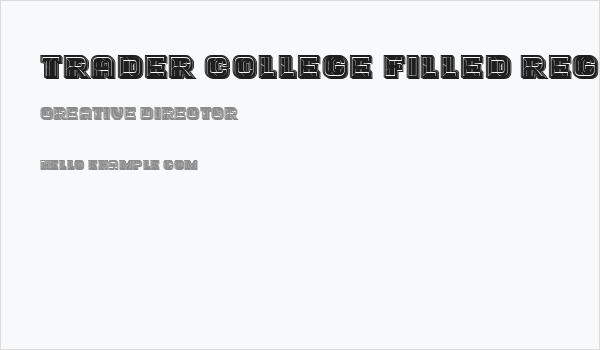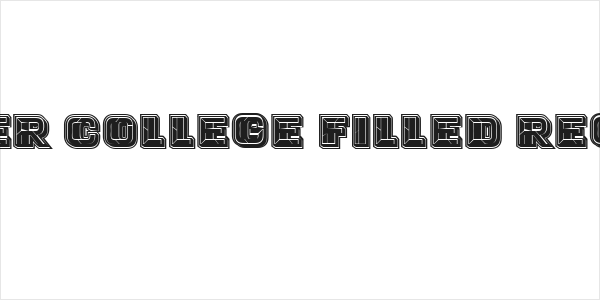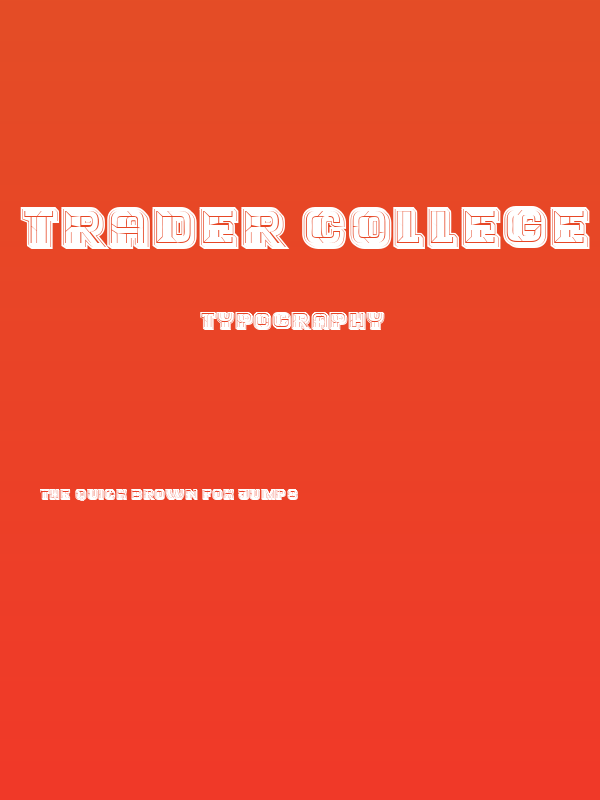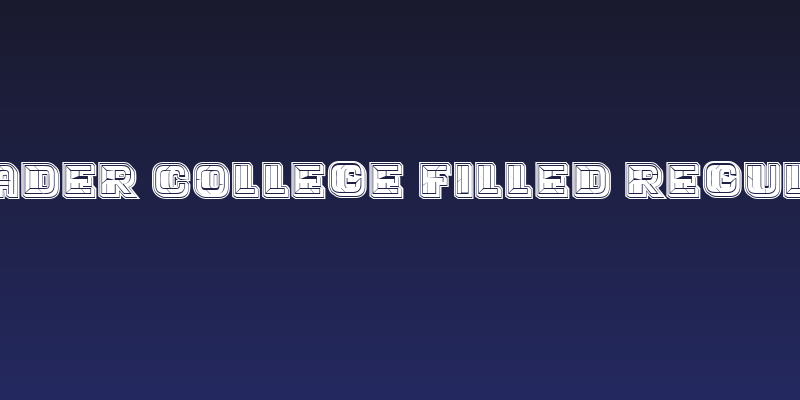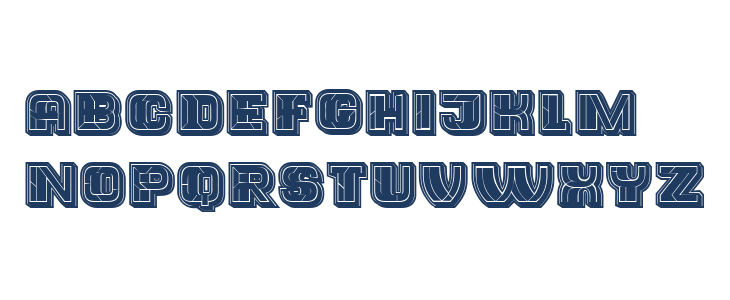
Trader College Filled Regular Font
Trader College Filled Regular Description
This font features a bold, collegiate style with a filled, blocky appearance. The characters are outlined, giving them a layered, dimensional look that is reminiscent of traditional varsity or sports team lettering. The uppercase letters are uniform in height, with strong geometric shapes and sharp angles. The design is consistent across the alphabet, maintaining a cohesive and structured aesthetic. This font is ideal for creating a strong visual impact, with its bold presence and clear readability. The overall style is both classic and modern, making it versatile for various design needs.